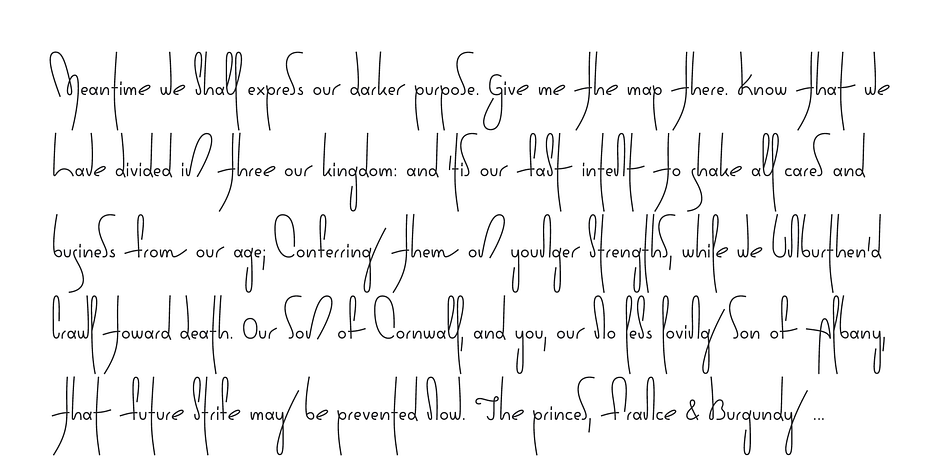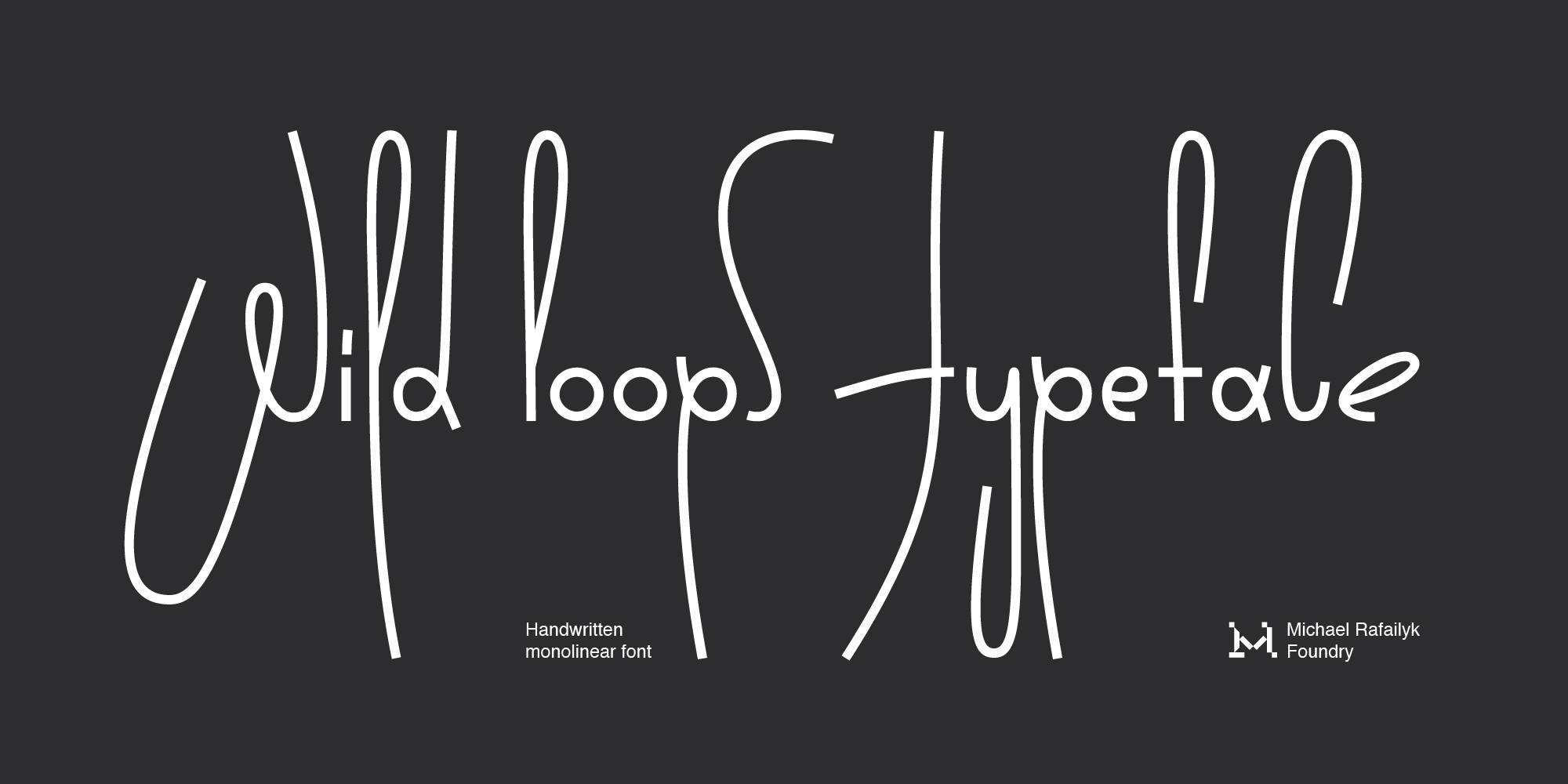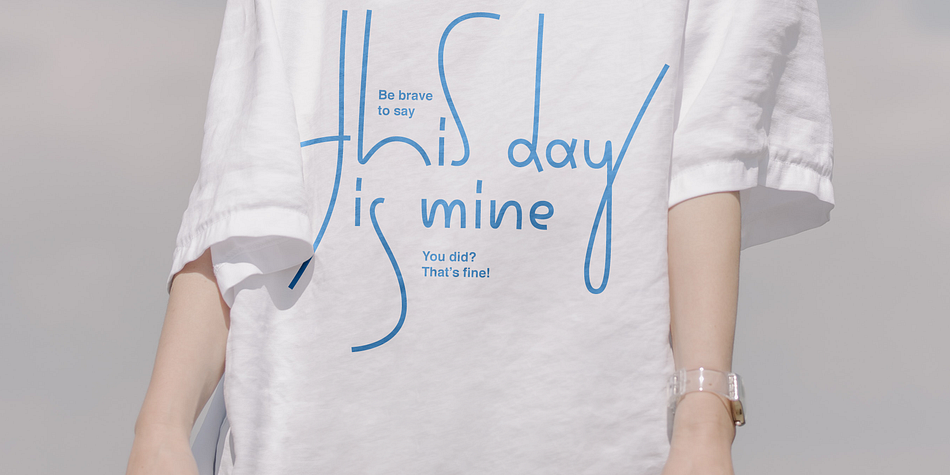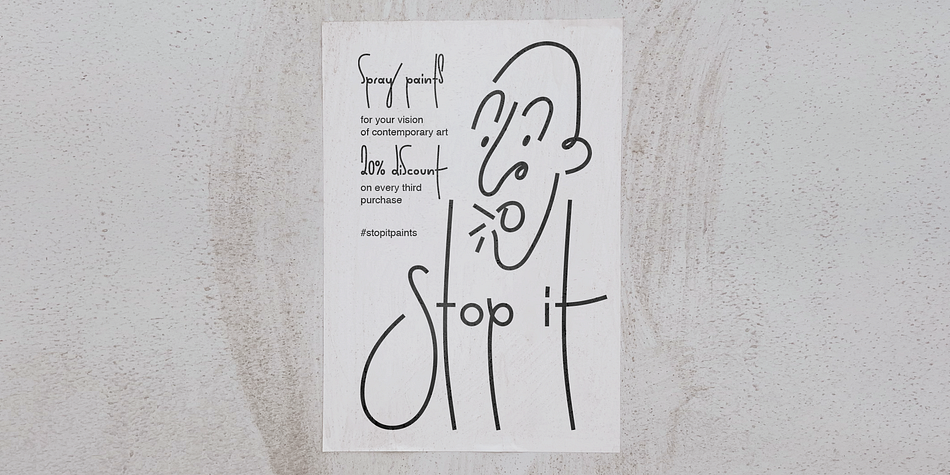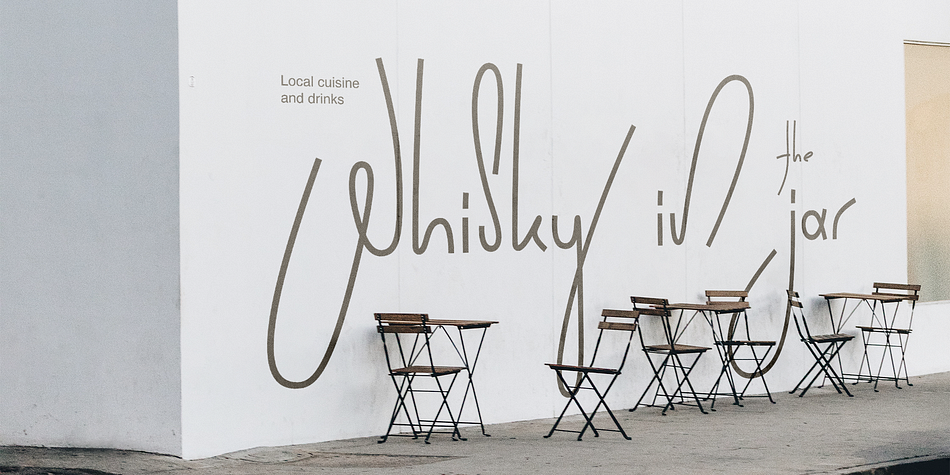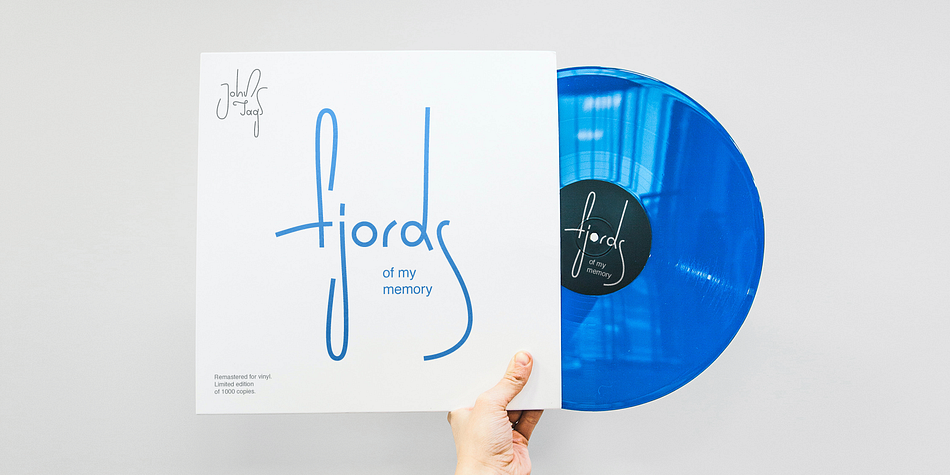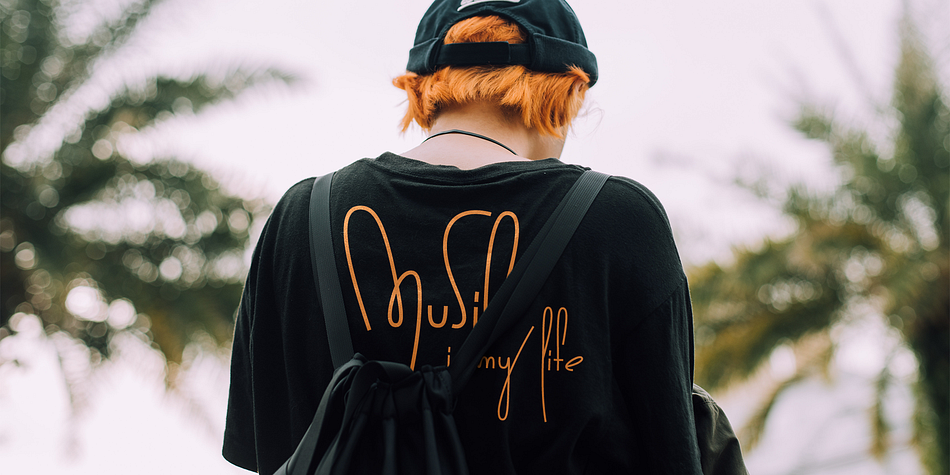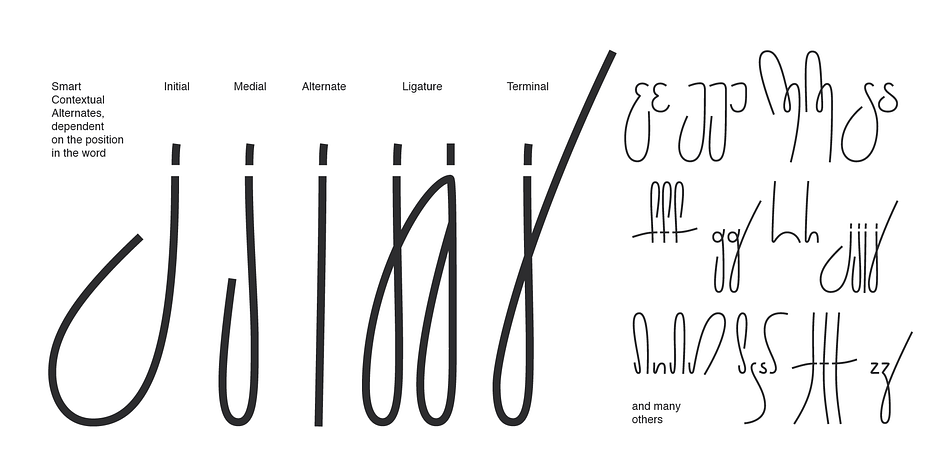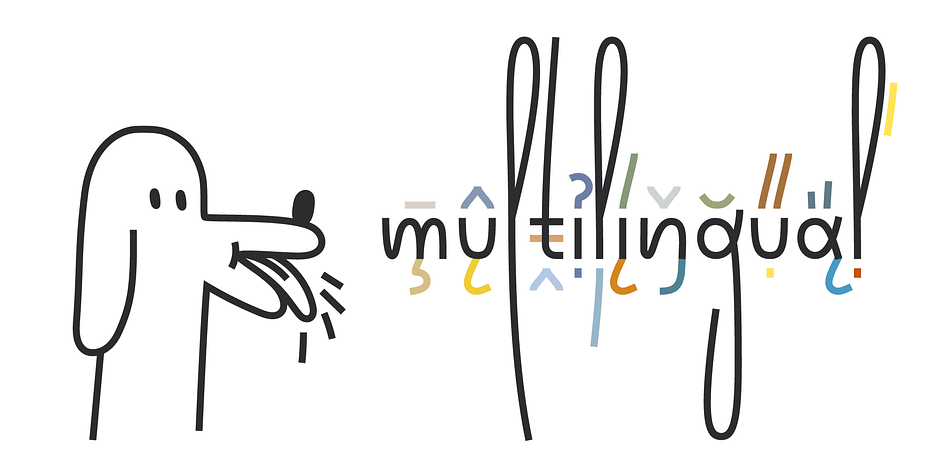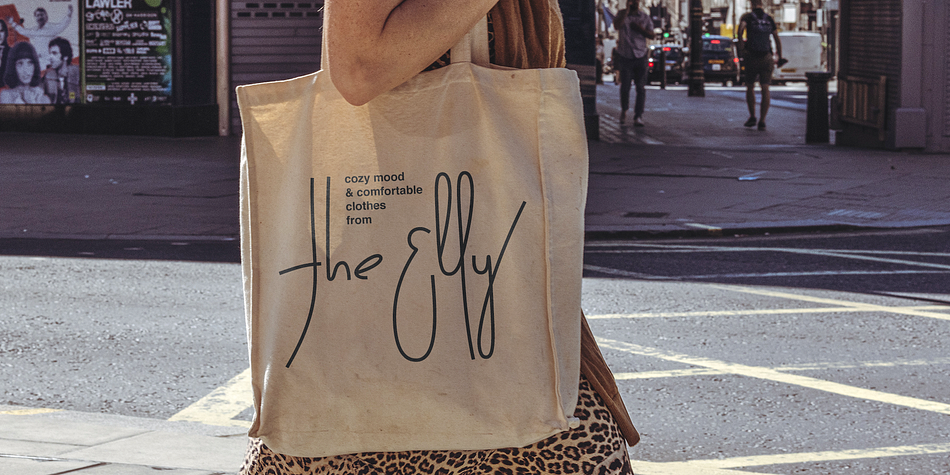
Wild Loops
Designed by Michael Rafailyk, Wild Loops is a hand display font family. This typeface has two styles and was published by Michael Rafailyk.
Wild Loops is a handwritten monolinear typeface with a long loops of ascenders and descenders. Inspired by the marker sketches and graffiti on the walls, the font speaks to a young audience and looks a bit crazy with its stretched Ascenders and Descenders. The main feature of the font is a smart Contextual Alternates that substitute different versions of letters depending on its position in the word (at the beginning, middle, and the end of a word), which makes the writing more natural.